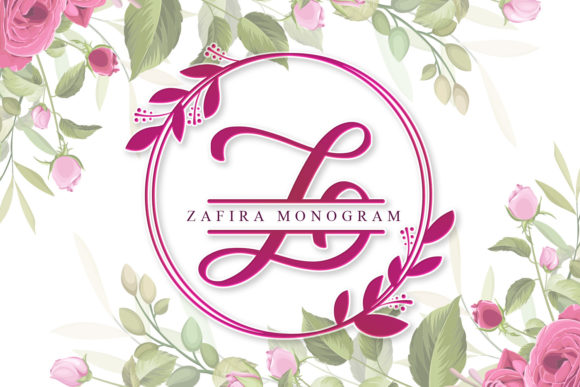
Journey into the world of Zafira Monogram Font, a decorative font crafted with charm and delicacy. Immerse yourself in its authentic essence, allowing your creativity to flourish as you design stunning invitations, exquisite stationary art, captivating social media posts, and adorable greeting cards.
Indulge in the beauty of Zafira Monogram, where intricate details intertwine to create a visual masterpiece. Each letter is meticulously designed to evoke a sense of elegance and sophistication, adding a touch of magic to your designs. Whether you're a seasoned designer or just starting, Zafira Monogram is the perfect font to elevate your projects to new heights.
Unleash your imagination and let the flow of Zafira Monogram guide you. Its smooth curves and graceful lines add a sense of movement and energy to your designs, captivating your audience and leaving them spellbound. Embrace the versatility of Zafira Monogram, as it effortlessly adapts to a wide range of design aesthetics. From classic and timeless to modern and edgy, this font will seamlessly blend into your vision, reflecting your unique style and personality.
With Zafira Monogram, you'll discover endless possibilities for self-expression. Personalize your digital world with eye-catching social media posts that reflect your individuality. Craft heartfelt greeting cards that convey your sincere emotions and leave a lasting impression on loved ones. Transform ordinary invitations into exquisite works of art, setting the tone for an unforgettable event. Zafira Monogram is more than just a font; it's a gateway to a world of creativity and self-expression. As you explore its depths, you'll uncover a treasure trove of opportunities to bring your ideas to life in a truly captivating manner.
So, embrace the allure of Zafira Monogram and unlock the full potential of your designs. Let its charm and elegance elevate your projects, leaving a lasting impression that will inspire and captivate. Experience the magic of Zafira Monogram today and embark on a creative journey like never before.